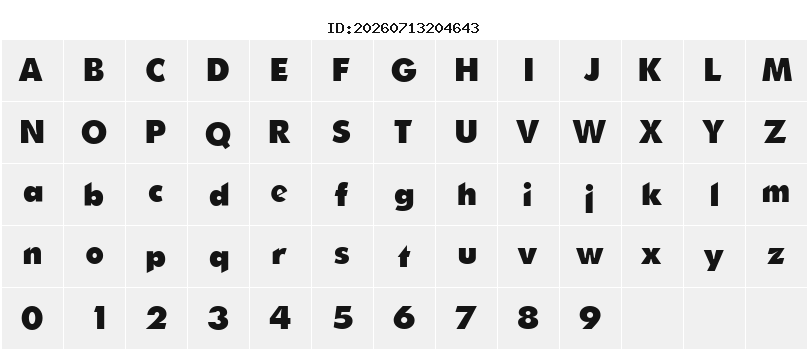
About CandellaSSi.ttf
CandellaSSi.ttf is a modern, elegant sans-serif font designed for ultimate readability and visual harmony. Perfect for branding, headlines, web design, and print materials.